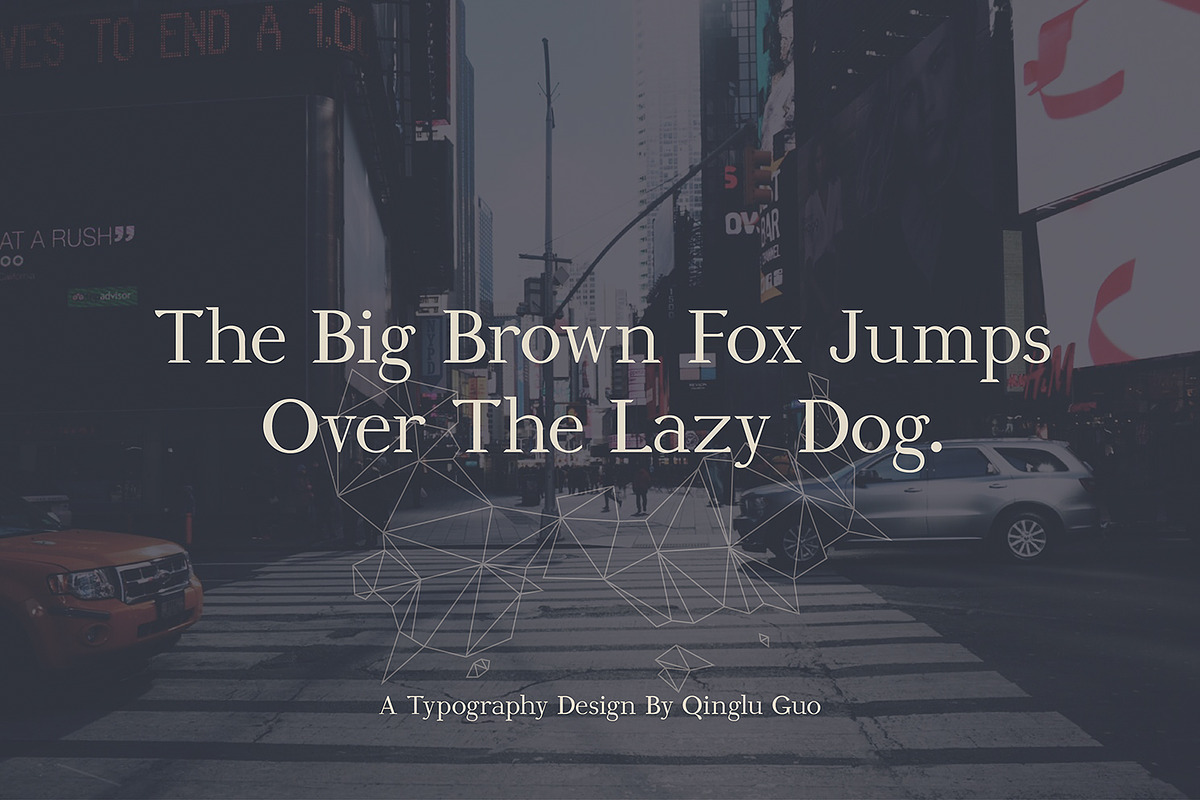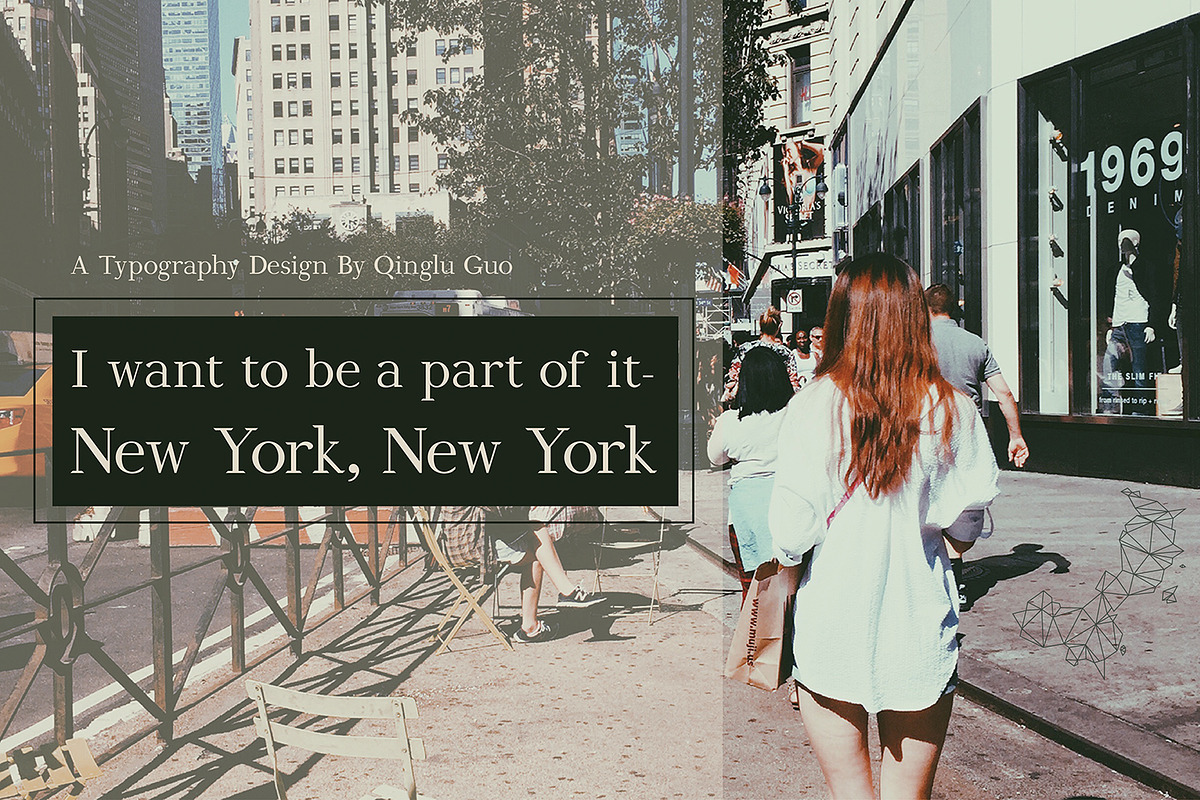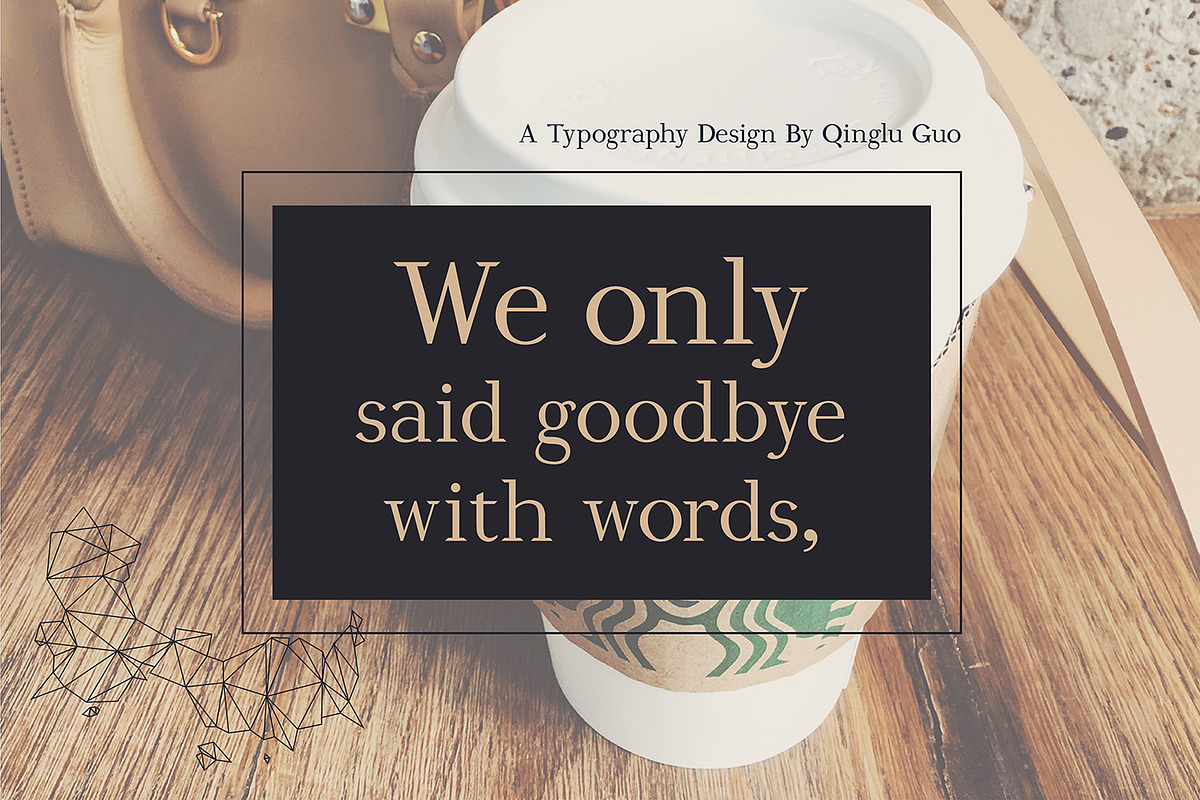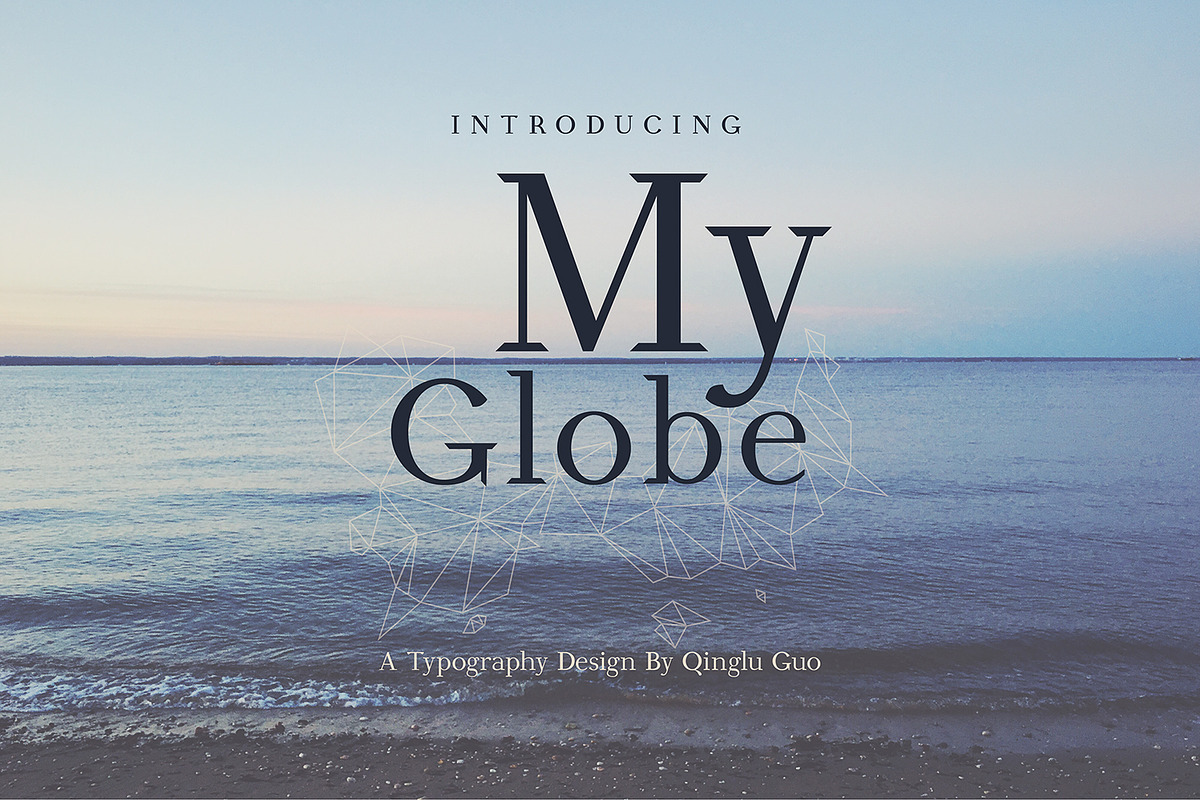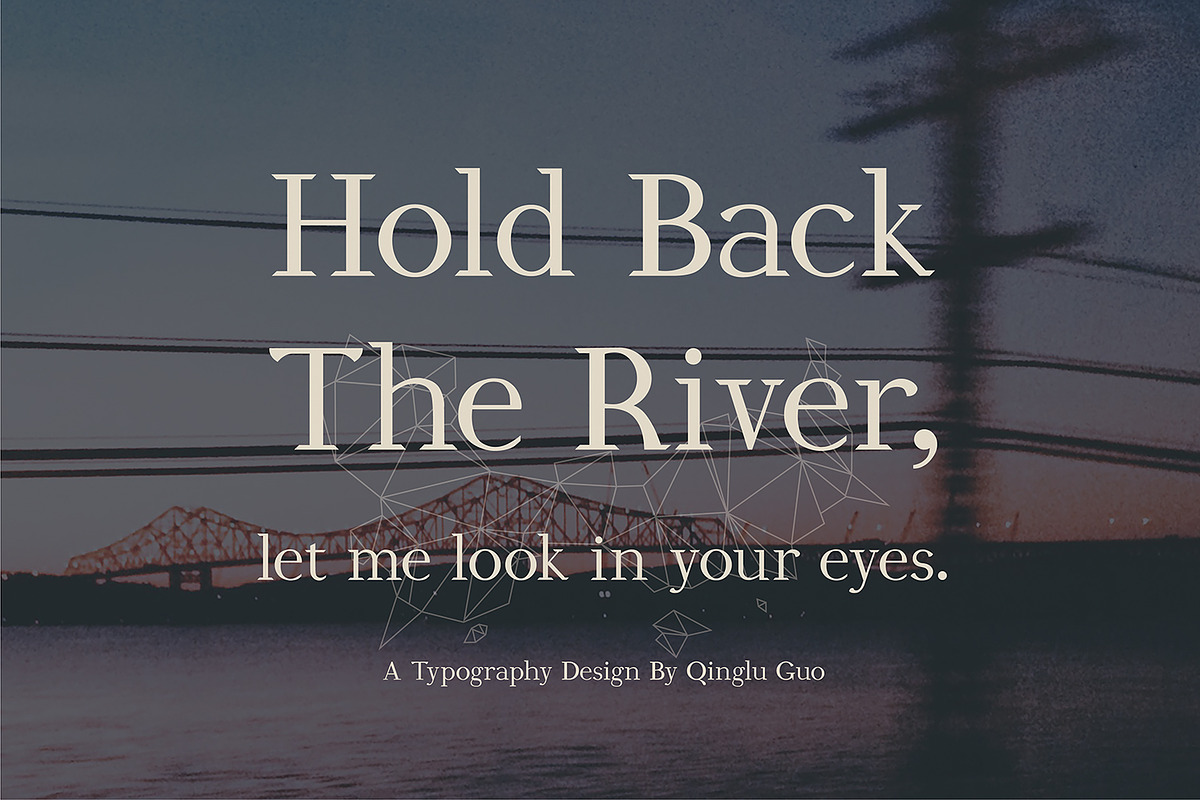
My Globe Font
My Globe Font by qingluguo is a font selected for branding, posters, packaging, typography.
Why My Globe Font is worth a look
My Globe Font by qingluguo fits naturally into Branding, posters, packaging, typography.